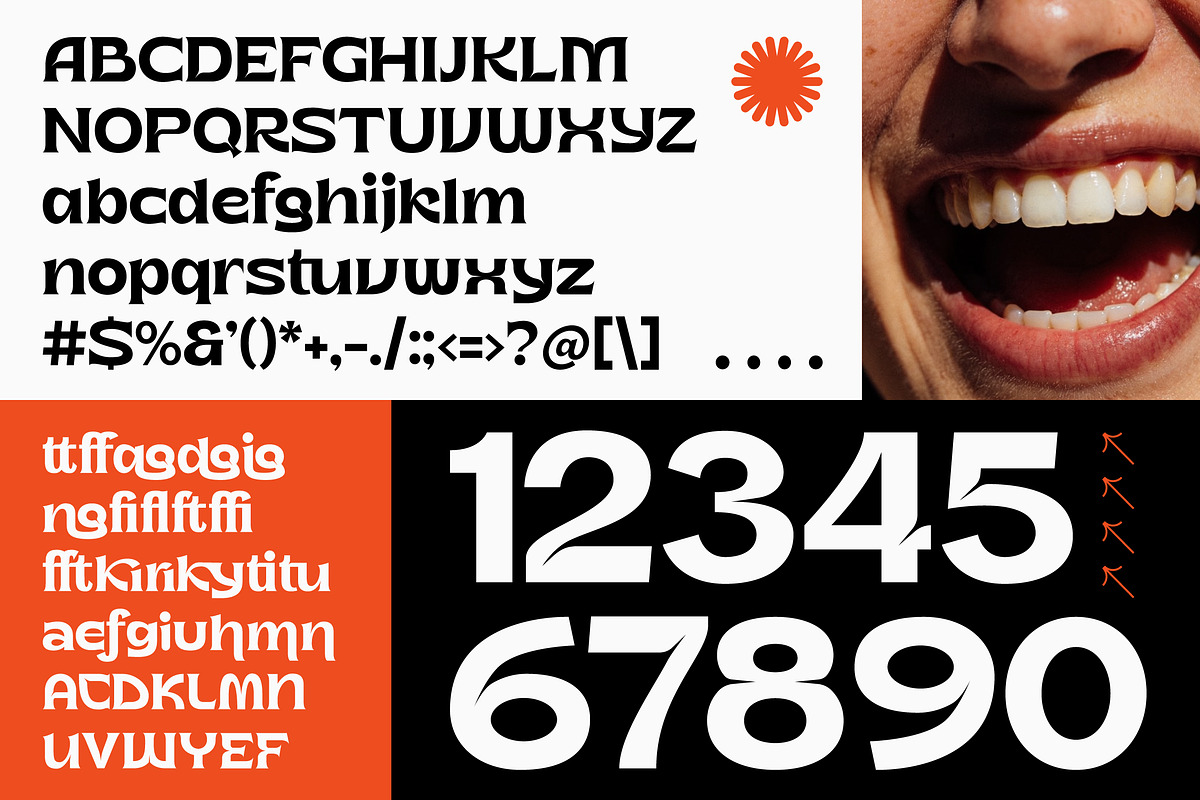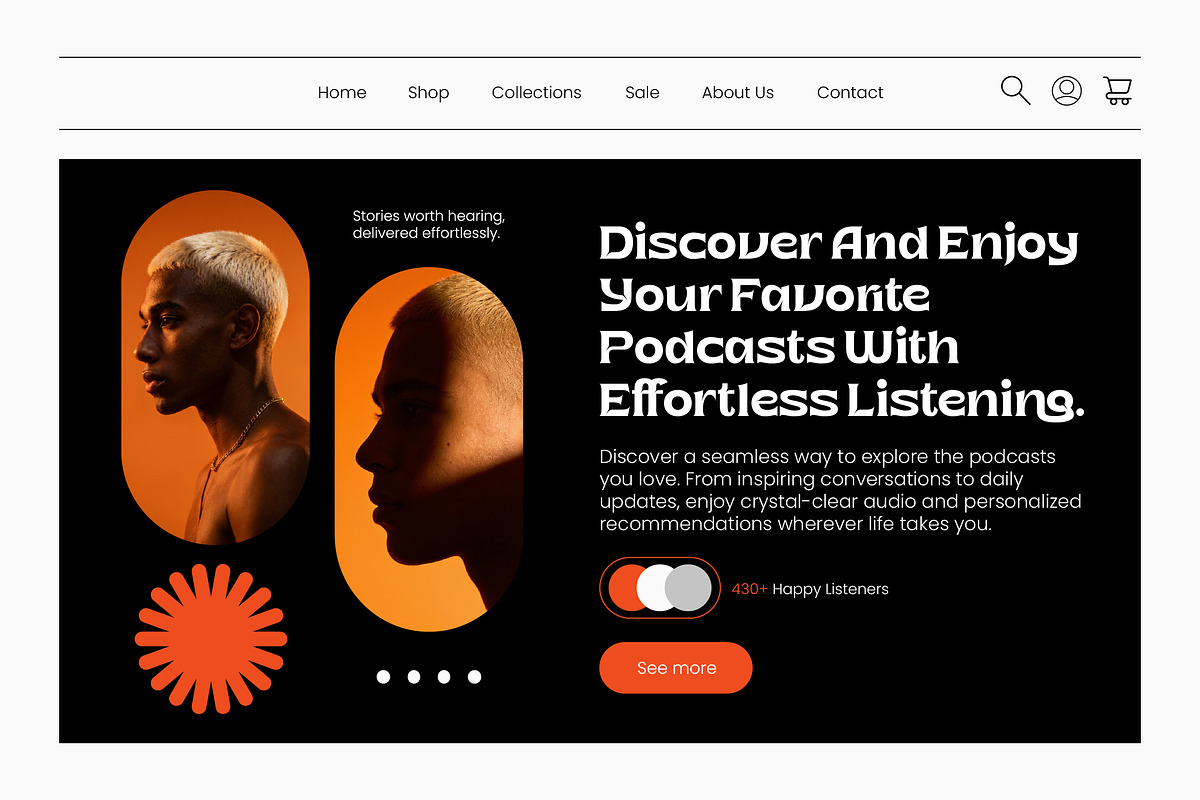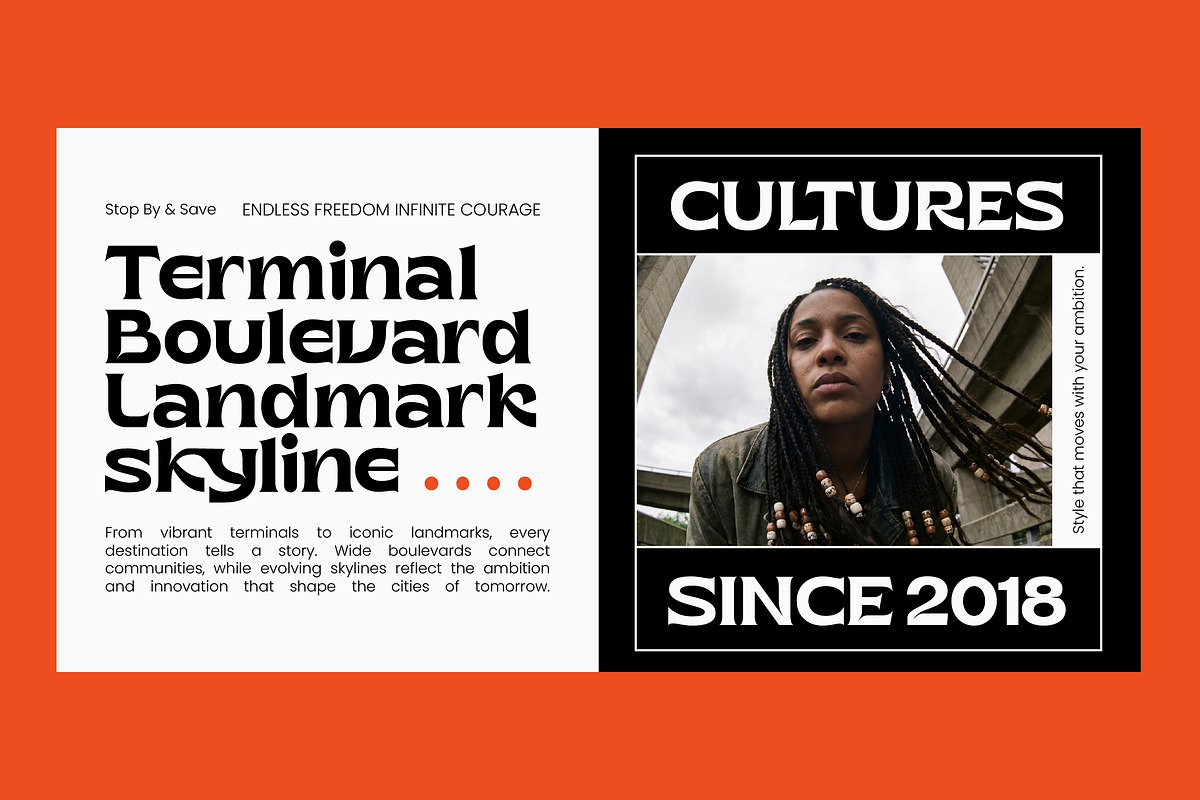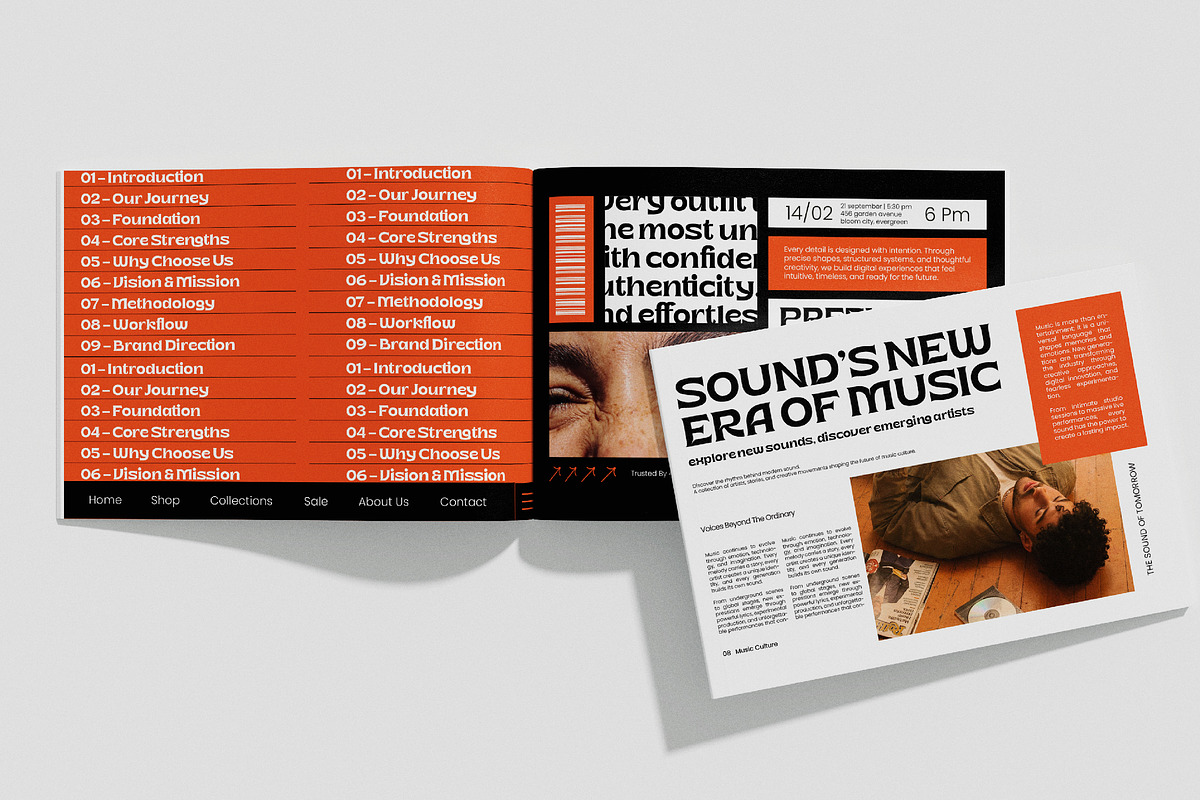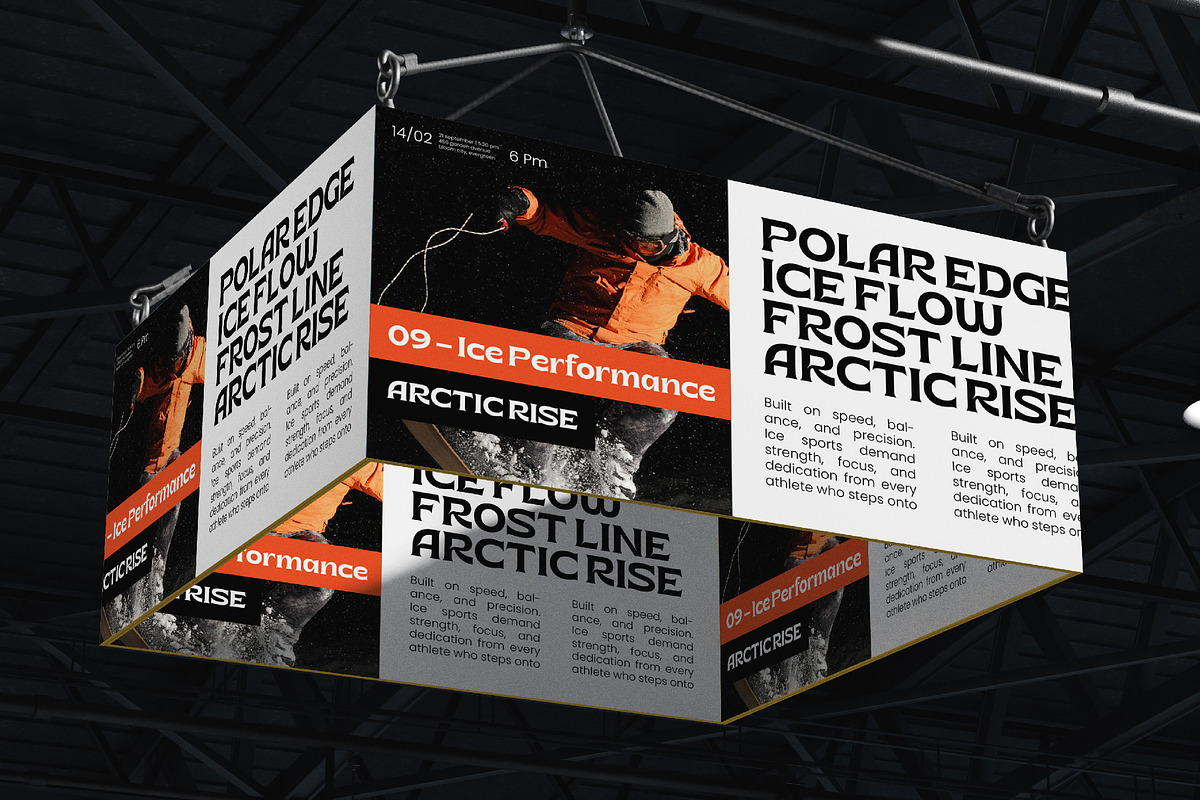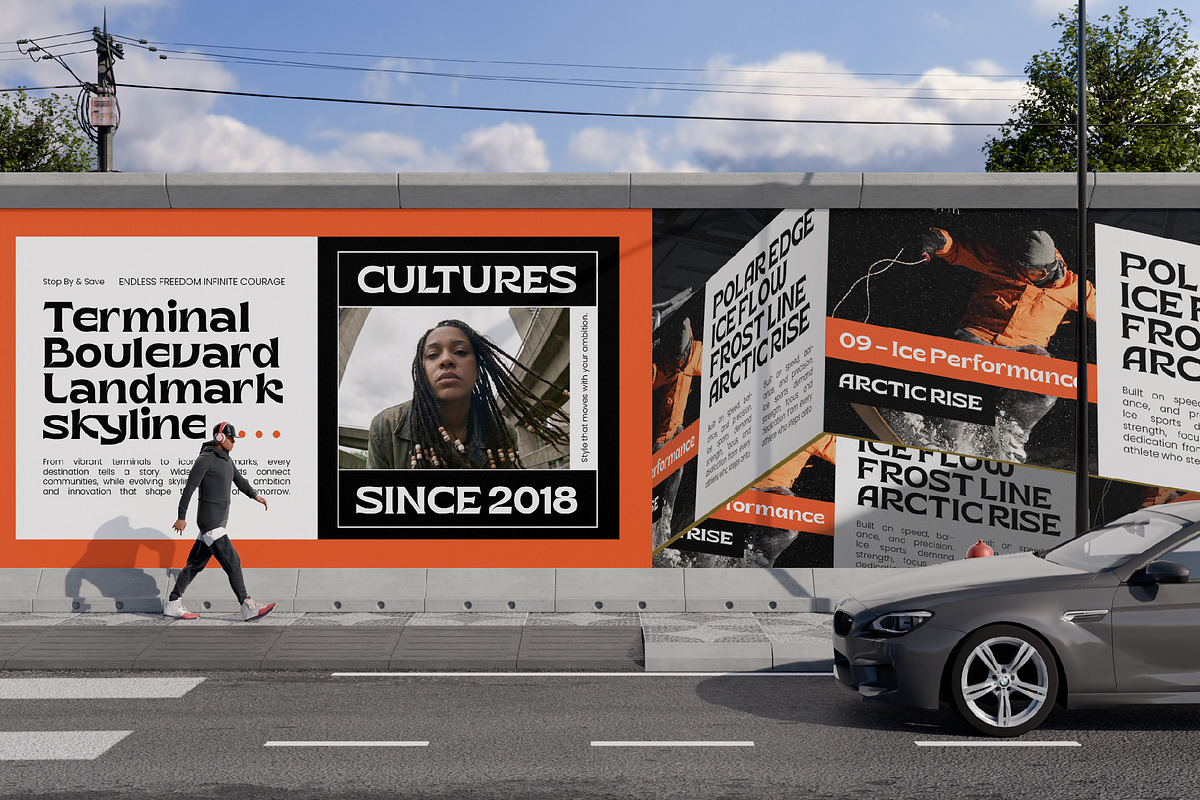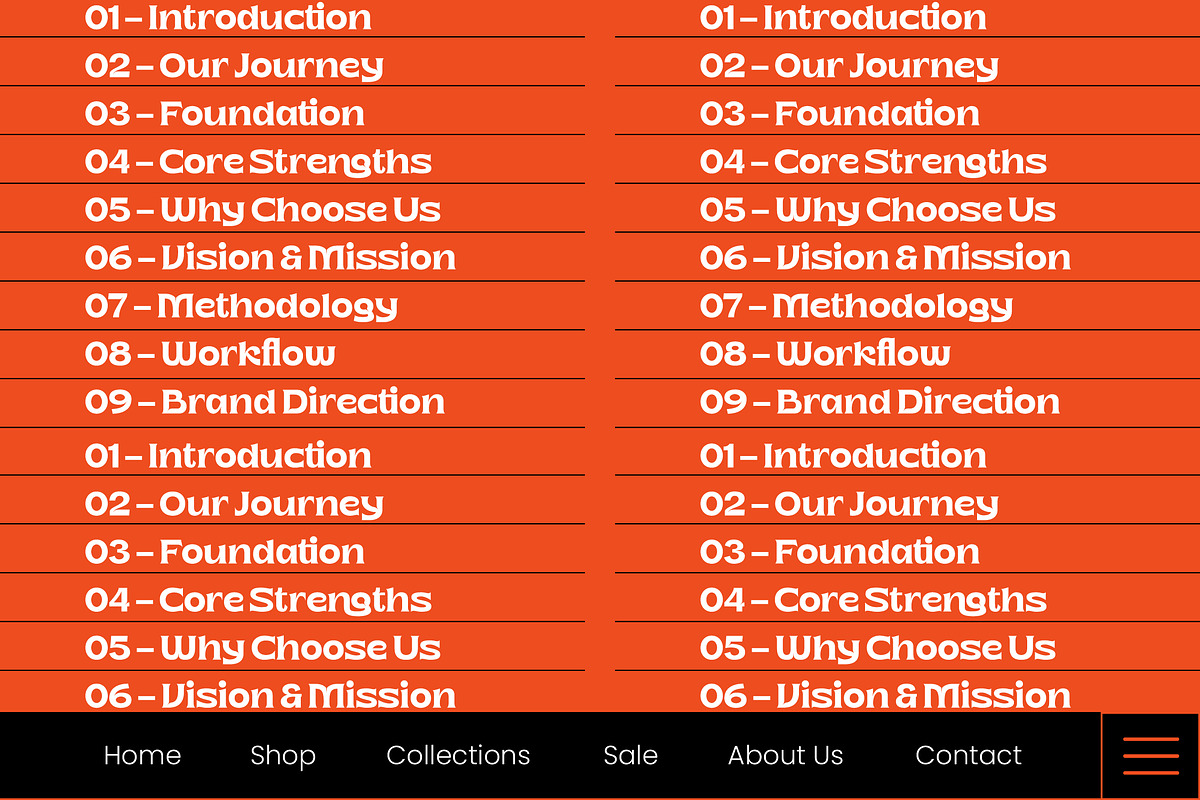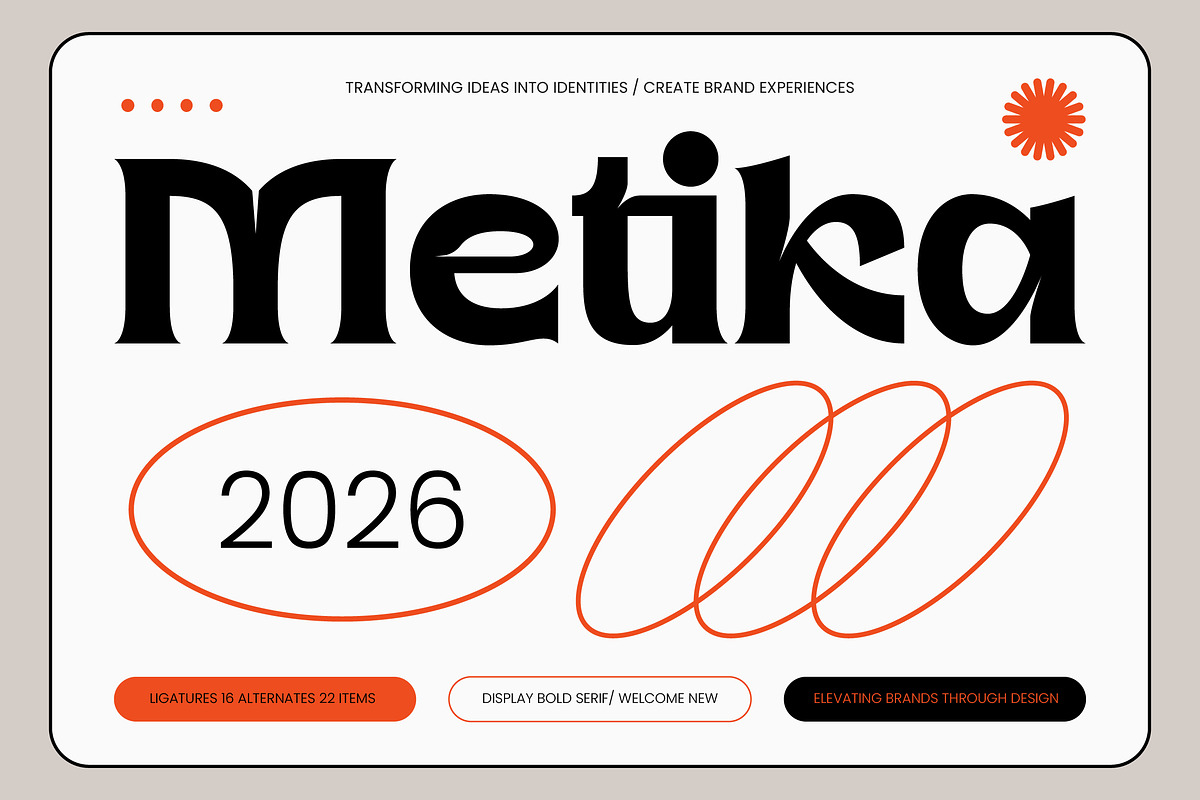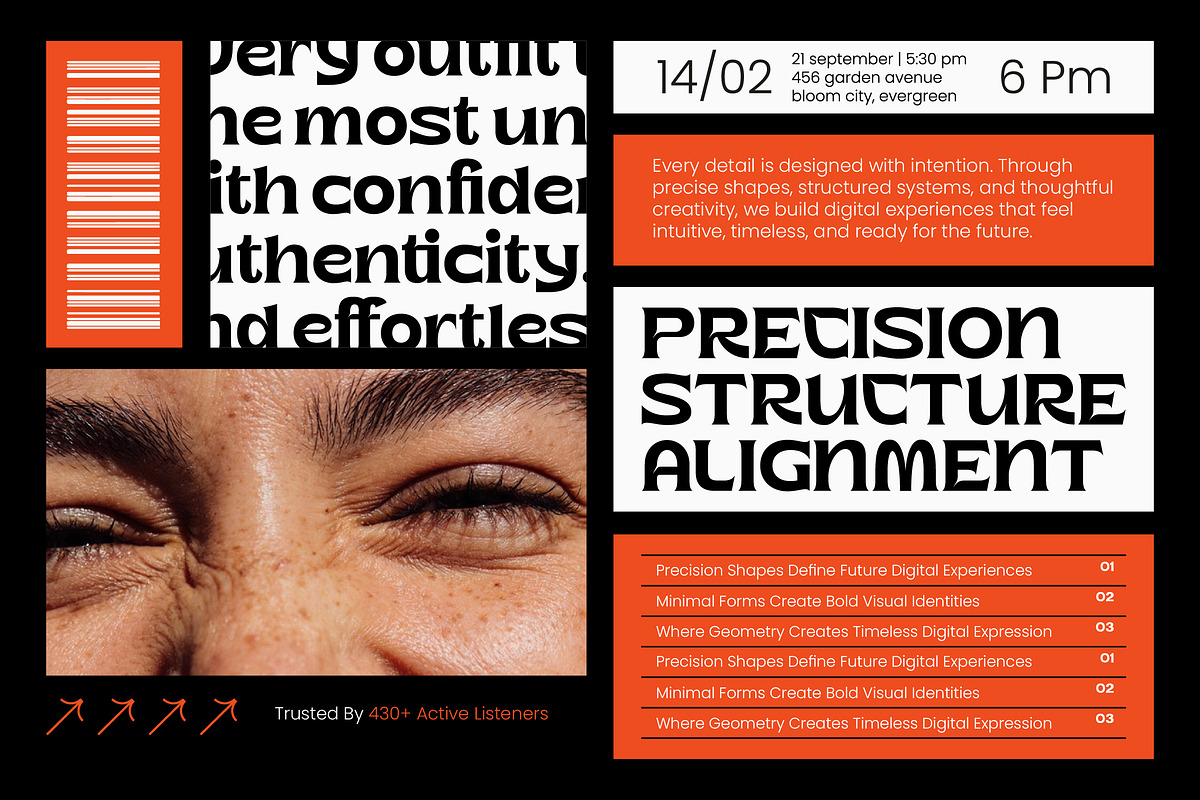
Metika Display Bold Serif
Metika - Display Bold Serif , Elevate your visual identity with a typeface that embodies modern sophistication. Metika - Display Bold Serif is a high-contrast serif that masterfully blends classical elegance with contemporary boldness. The striking balance between its thick, authoritative stems and refined hairlines creates a dramatic visual rhythm, ensuring your headlines capture immediate attention and convey a sense of uncompromising quality.
Command attention across every premium touchpoint of your brand with ease. Metika - Display Bold Serif is the definitive choice for luxury branding, upscale packaging, and high-end editorial design. It is perfect for iconic logo design, fashion magazine mastheads, and sophisticated digital advertisements where a bold aesthetic is required to communicate prestige and exclusivity to a discerning audience.
Unlock global potential with a typeface built for international reach and seamless communication. With its extensive multilingual support, Metika - Display Bold Serif adapts seamlessly across global markets, making it incredibly versatile for international projects. This comprehensive character set ensures that your visual identity remains cohesive and impactful, regardless of the language or region, providing a unified brand voice worldwide.
Transform your creative vision into a powerful and memorable brand experience today. By choosing Metika - Display Bold Serif, you are investing in a timeless display font that promises unparalleled visual impact and professional versatility. Its sophisticated personality and precise craftsmanship make it an essential asset for modern designers seeking to deliver authority and high-end style in every professional layout.